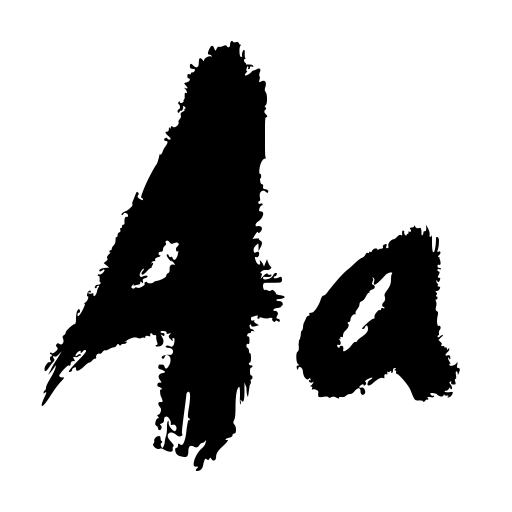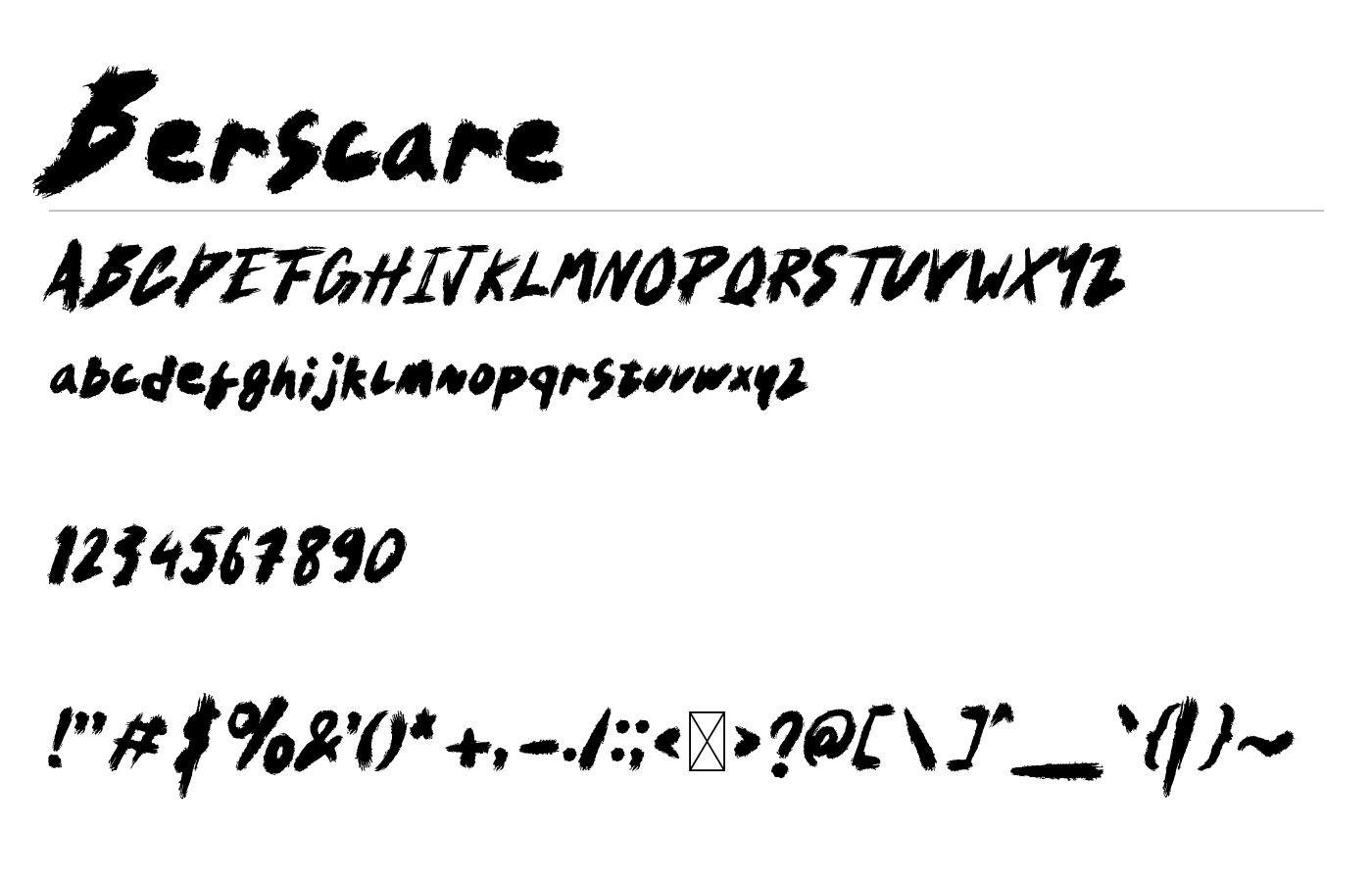
Berscare is a bold, handwritten brush script font with a rough, textured style that brings energy and a raw, artistic feel to any design. Its irregular strokes and organic flow make it a striking choice for creative projects, posters, and branding that want to convey passion and spontaneity. This font works best in expressive headlines or logos where a strong, dynamic personality is needed.
Berscare Font
About Berscare Font